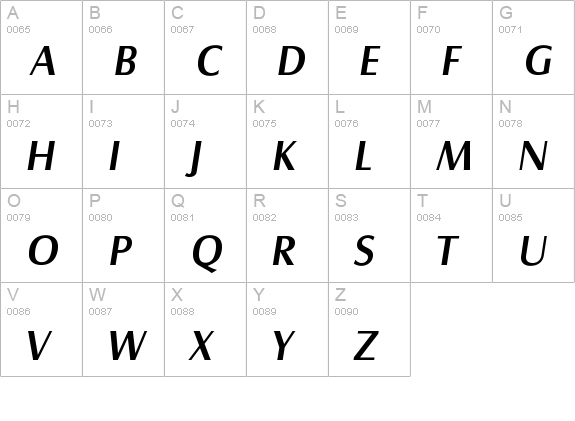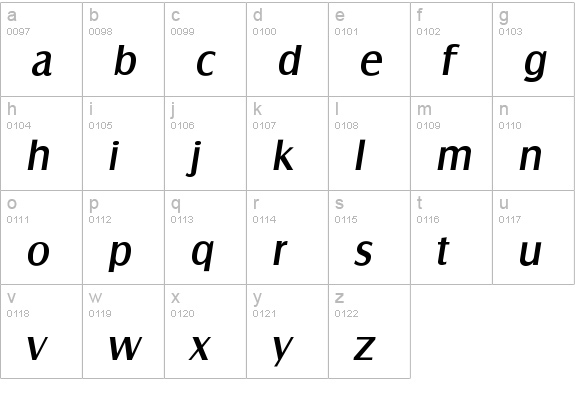
Salzburg-MediumIta is a stunning and versatile font that combines elegance with a touch of modernity. Its sleek and smooth lines give it a timeless appeal, making it perfect for a wide range of design projects. This font exudes sophistication and professionalism, making it an excellent choice for branding, advertisements, logos, headlines, and more. The Salzburg-MediumIta font offers a perfect balance between legibility and style, ensuring that your message is conveyed with clarity and impact. Its medium weight gives it a balanced and harmonious appearance, making it suitable for both large and small text sizes. One of the best things about the Salzburg-MediumIta font is that it is free! That's right, this incredible font is freely available to download at FontsMarket.com. Whether you're a professional designer or a hobbyist, you can enjoy the benefits of this high-quality font without having to spend a penny. With its extensive character set, including uppercase and lowercase letters, numbers, punctuation, and special symbols, the Salzburg-MediumIta font offers great flexibility and creativity. It supports multiple languages, making it accessible to a global audience. So why wait? Enhance your designs and elevate your projects with the Salzburg-MediumIta font. Download it for free at FontsMarket.com and let your creativity soar.